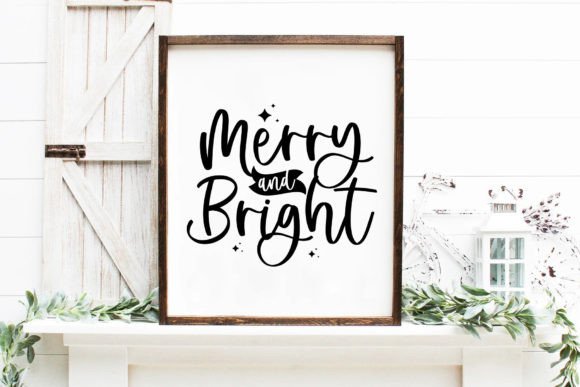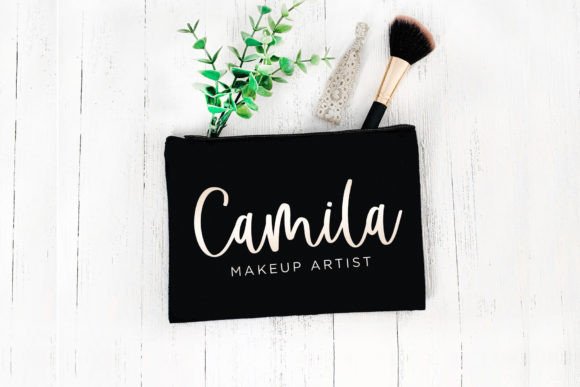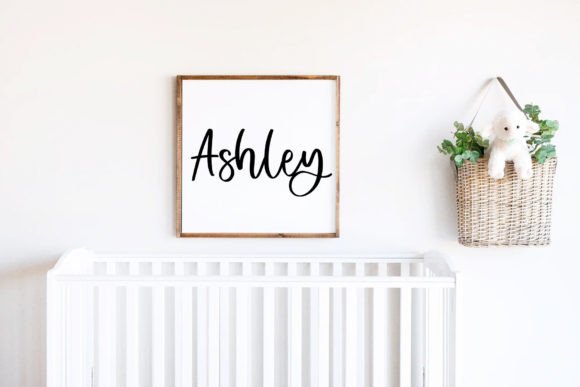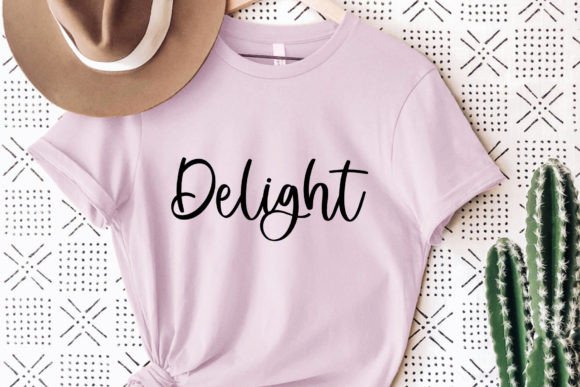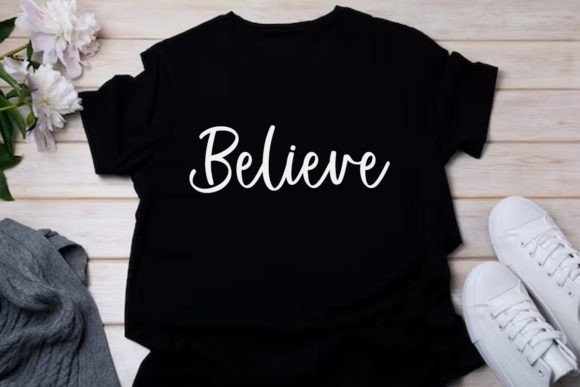
The Perfect Blend of Style and Creativity: Introducing Bethny Charlie Font
Have you ever been in a rush to finish a project, only to find the perfect font that brings it all together? That’s exactly what happened to me when I stumbled upon Bethny Charlie Font. As a designer, I’ve always been on the lookout for that one font that can elevate my designs and make them truly stand out. And let me tell you, Bethny Charlie Font is it.
This fresh and modern handwritten font is more than just a pretty face – it’s a powerful tool that can take your designs to the next level. With its beautiful and well-balanced characters, Bethny Charlie Font is the perfect choice for creating eye-catching logos, branding, and quotes. Its versatility makes it a valuable asset for designers looking to add a touch of creativity to their work.
Bethny Charlie Font Key Features
- Font Family: Bethny Charlie
- Unique Characteristics: Bethny Charlie features a unique blend of modern and vintage elements, with intricate details and ornaments, making it suitable for various design projects, including invitations, greeting cards, and wedding stationery
Bethny Charlie Font Review
As a designer, I recently had the chance to work with the Bethny Charlie font, and I must say, it’s an interesting addition to any digital project. ✨ Here are some of its standout features:
- Unique letterforms: The Bethny Charlie font boasts a distinctive, hand-drawn feel that can add a touch of whimsy to any text.
- High legibility: Despite its ornate appearance, the font is surprisingly easy to read, making it a great choice for body text.
- Customization options: The font comes with a range of weights and styles, allowing designers to fine-tune the look to suit their project’s needs.
- Overuse of flourishes: The font’s intricate details can quickly become overwhelming if used excessively, which may detract from the overall design.
- Lack of consistency: Some letterforms feel slightly inconsistent in terms of weight and size, which may affect the overall aesthetic.
Overall, I’d say the Bethny Charlie font is a great choice for designers looking to add a touch of personality to their projects. While it may have its limitations, its unique charm and high legibility make it a solid addition to any font library. ⚠️ Just be mindful of overusing its flourishes, and you’ll be golden.
Tips for Getting the Most Out of Bethny Charlie Font
For best results, use Bethny Charlie Font in headings and titles to add a touch of elegance. Avoid using it for large blocks of text, as it can become overwhelming. Experiment with different font sizes and colors to create visual interest.
Bethny Charlie Font is ideal for:
- Personalized gifts and certificates
Alternatives to “Bethny Charlie Font”
Playfair Display is a luxurious and elegant serif font, perfect for use in high-end branding, luxury products, and special occasions. It’s a great choice for designers who want to create a sense of sophistication and refinement.
Compared to Bethny Charlie Font, Playfair Display is more formal and has a more classical feel, making it suitable for formal invitations, wedding stationery, and upscale packaging.
Great Vibes is a modern and elegant script font, ideal for use in creative and artistic projects, such as wedding invitations, greeting cards, and advertising materials. It’s a great choice for designers who want to add a touch of whimsy and personality to their designs.
Compared to Bethny Charlie Font, Great Vibes is more casual and has a more relaxed feel, making it suitable for informal events, social media graphics, and blog posts.
Carolyna Pro is a elegant and sophisticated script font, perfect for use in high-end branding, luxury products, and special occasions. It’s a great choice for designers who want to create a sense of luxury and refinement.
What is the recommended font size for Bethny Charlie?
The recommended font size for Bethny Charlie is between 12pt and 24pt, depending on the context and intended use. For body text, we recommend using 14pt or 16pt, while headings and titles can be set to 18pt or 20pt. Experiment with different font sizes to find the optimal balance for your design.